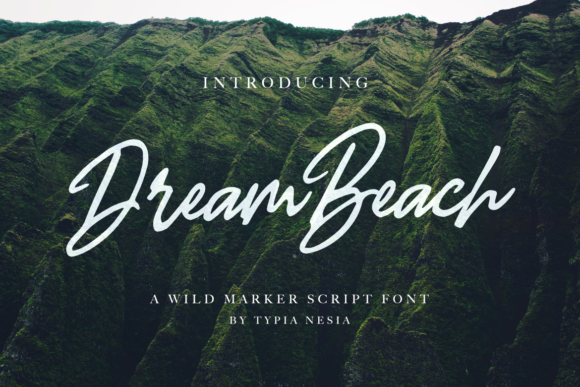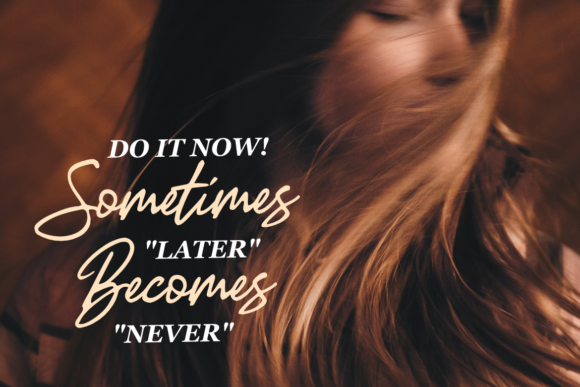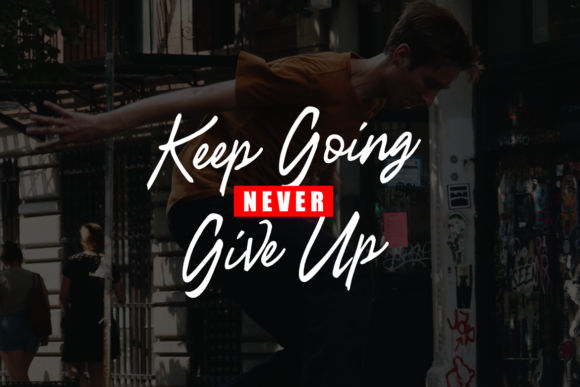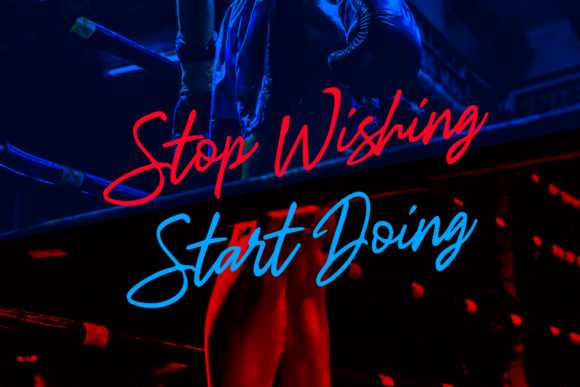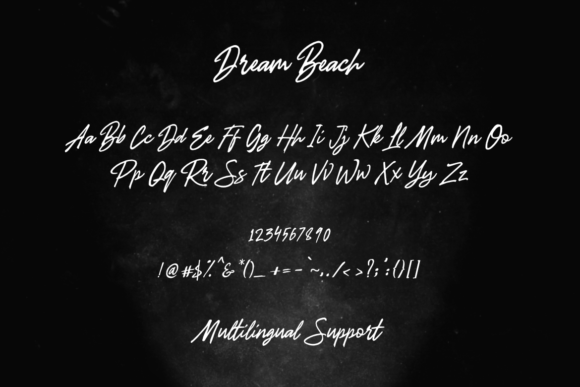
Dream Beach Font
About Dream Beach Font
The Dream Beach is a wild marker script font. It’s suitable for logos, branding, t-shirts, posters, packaging, book covers, hipster designs, cards, and much more!